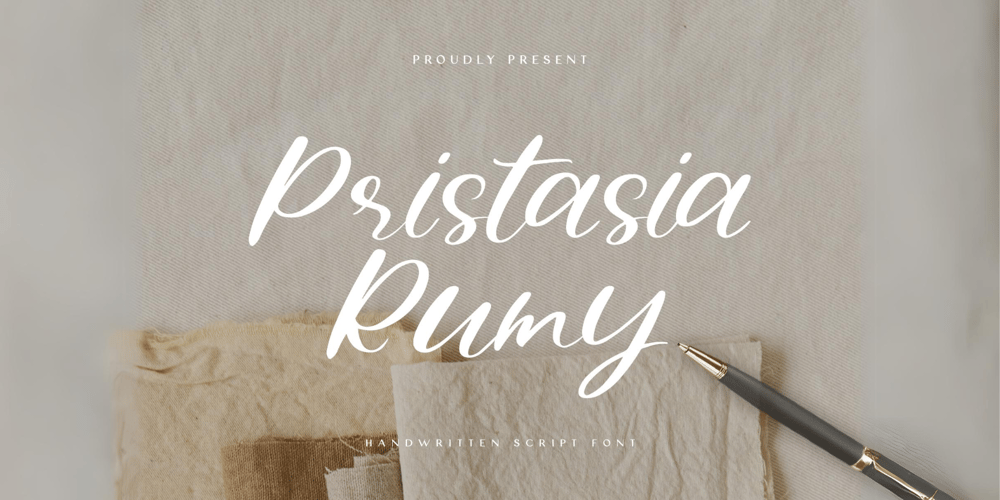
Pristasia Rumy Font Family was designed by Wildan Suprian Syah and published by Amani Studio. Pristasia Rumy contains 1 styles and family package options. Pristasia Rumy is a magical handwritten script font carefully created with a touch of elegance. Whether you’re looking for fonts for Instagram or calligraphy scripts for DIY projects or for company products, this font will turn any creative idea into a true piece of art!